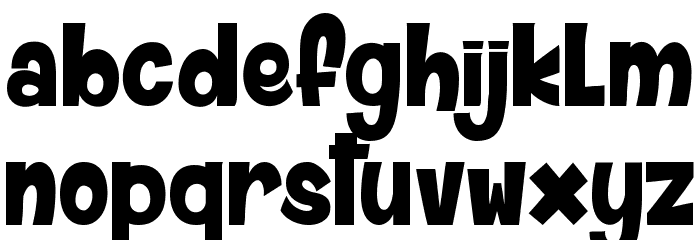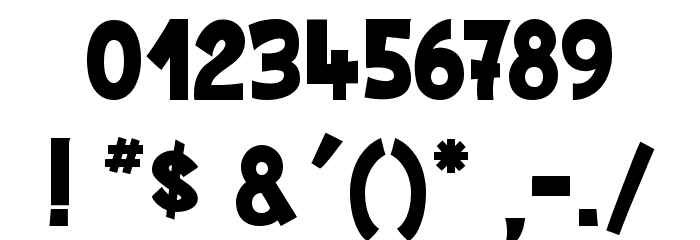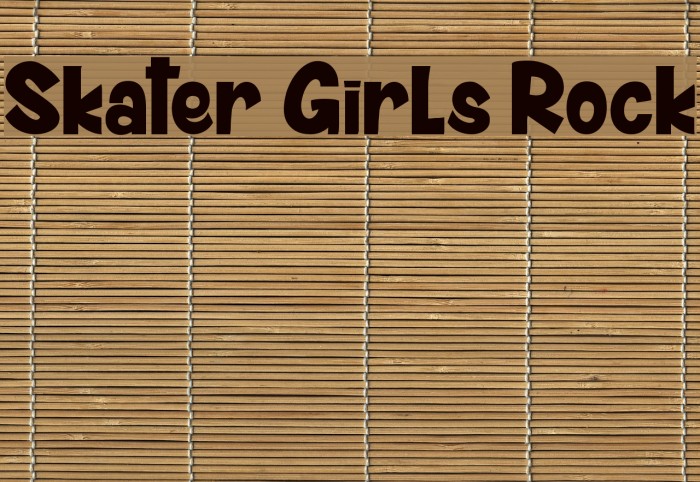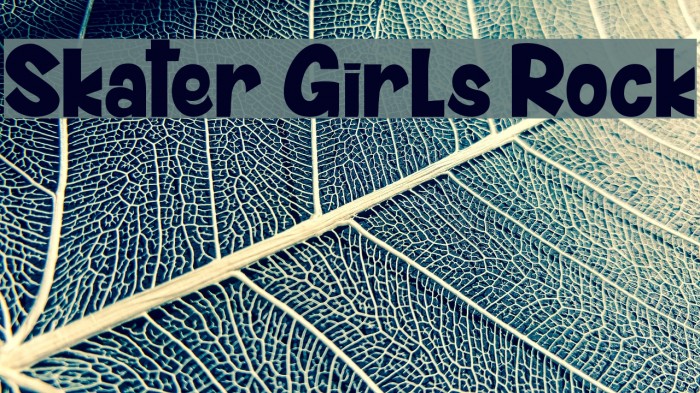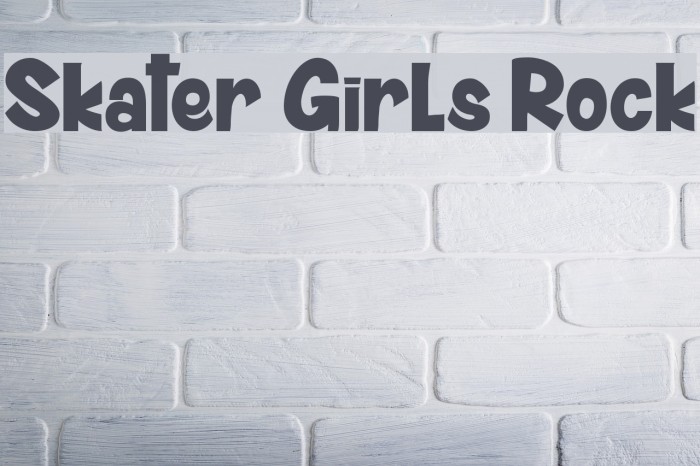
Skater Girls Rock Font
This font features bold, playful characters with a distinct, youthful energy. The letters are thick and rounded, giving them a friendly and approachable appearance. The uppercase and lowercase letters maintain a consistent style, with some unique variations in character shapes that add a touch of whimsy. The numbers and special characters are equally bold, ensuring readability and consistency across all text elements. This font's design is perfect for capturing attention and conveying a sense of fun and excitement.
A bold, playful font with rounded characters and a youthful vibe.
- Font: Skater Girls Rock
- Proposed Projects: Ideal for children's book covers, playful branding, event posters, and merchandise aimed at a young audience.
- Overall Style: Playful, Youthful, Fun